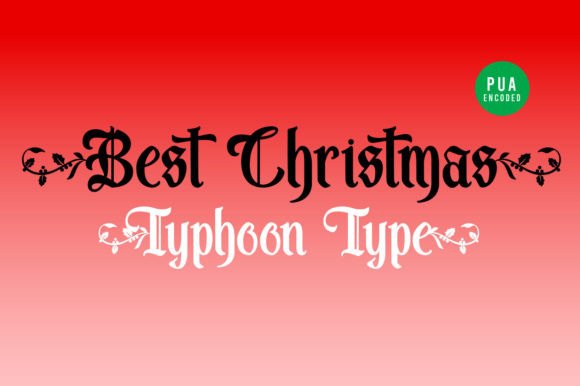
The Magic of Best Christmas Font: A Holiday Design Essential
Ah, the holiday season. A time for joy, giving, and creating beautiful designs that capture the spirit of the season. I still remember the year I was tasked with designing a Christmas card for a client’s family. I spent hours scouring font libraries, searching for the perfect blackletter font that would evoke the warmth and festivity of the season. That’s when I stumbled upon Best Christmas Font, a friendly, fresh, rich, and elegant font that instantly became my go-to for all holiday design projects.
An Honest Review of Best Christmas Font
So, what makes Best Christmas Font so special? Let’s dive into the details.
- ✨ Friendly and approachable vibe that’s perfect for holiday greetings
- ✅ Elegant and rich blackletter style that’s sure to impress
- 🎉 Fresh and modern take on traditional holiday fonts
- 💻 Highly versatile and suitable for a wide range of design projects
While Best Christmas Font is an excellent choice for holiday designs, there are a few things to keep in mind:
- ⚠️ Some users may find the font a tad too ornate for very casual projects
- 🤔 Limited availability of certain OpenType features in certain design software
The Story Behind Best Christmas Font
Best Christmas Font was designed with the holiday season in mind. The designer, a passionate typographer, wanted to create a font that would capture the warmth and festivity of the season. Inspired by traditional blackletter fonts, Best Christmas Font combines elegance and friendliness to create a truly unique holiday font.
| Font Name | Best Christmas Font |
| Author | Typhoon Type™ – Suthi Srisopha |
Q: What makes Best Christmas Font so special?
A: Best Christmas Font is a unique blend of elegance and friendliness, making it perfect for holiday designs.